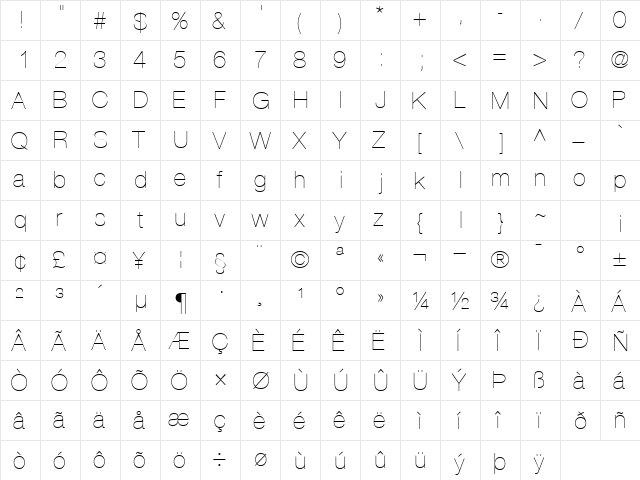
ContextRepriseLightSSK Regular
Design Context for ContextRepriseLightSSK Typeface
ContextRepriseLightSSK takes a measured approach to typography — its balanced proportions and neutral character make it a reliable workhorse for both digital and print work. Its slender proportions lend an understated elegance to any composition.